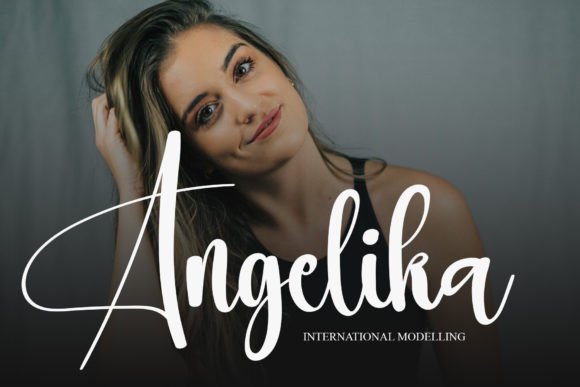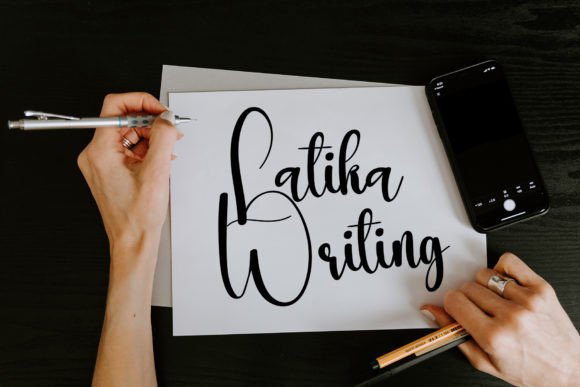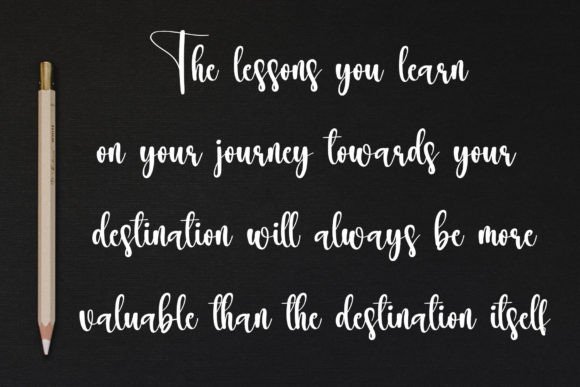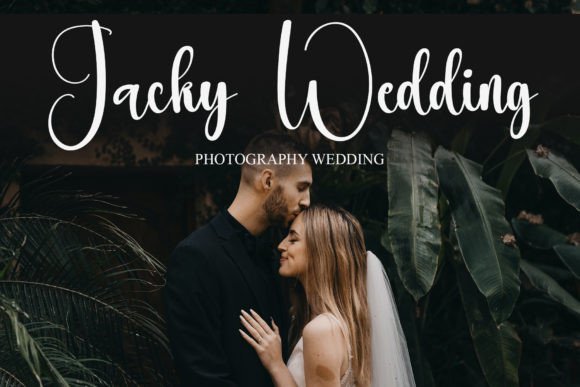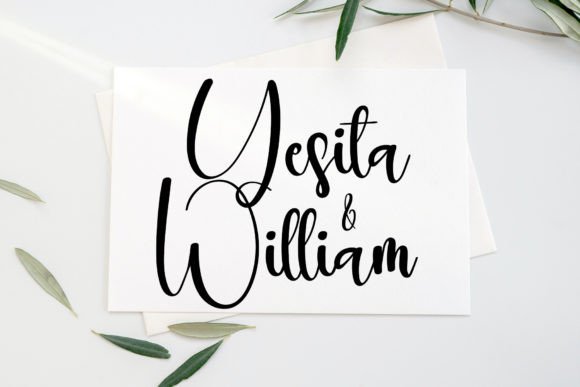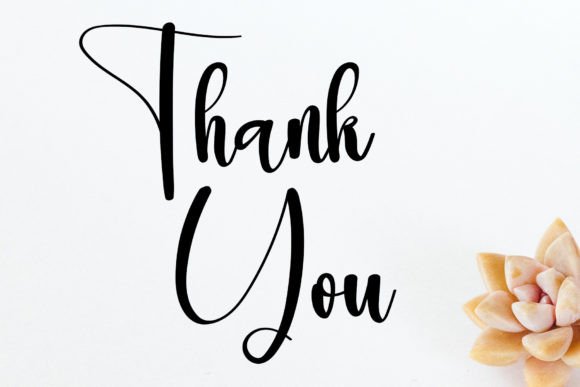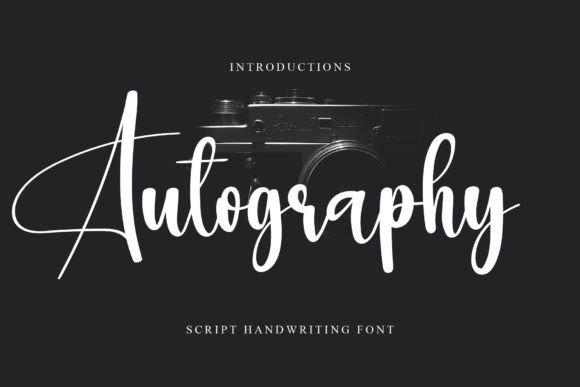
The Autography Font: Elevate Your Designs with Timeless Elegance
A Personal Review: What I Love About Autography
Autography is more than just a font; it’s a statement piece for your designs. Here are a few things that I absolutely love about it:
• ✨ Contemporary yet Classic: Autography strikes the perfect balance between modern flair and timeless elegance, making it versatile for a wide range of projects.
• 💫 Balanced and Varied: The font’s design ensures that your text remains readable while adding a touch of sophistication, perfect for headings and body text alike.
No font is perfect, and while Autography is incredibly versatile, there are a couple of things to keep in mind:
• 🤔 Legibility at Small Sizes: While Autography is stunning at larger sizes, it may lose some legibility when used at very small sizes. It’s best used for headlines, titles, and medium to large body text.
The Story Behind Autography
Autography was inspired by timeless classic calligraphy, reimagined for the modern era. The designer aimed to create a font that not only pays homage to traditional calligraphy but also meets the demands of contemporary design. The result is a font that is both elegant and versatile, suitable for a wide range of creative projects.
What is Autography font? Autography is a stylish handwritten font with a contemporary atmosphere, inspired by timeless classic calligraphy. It’s designed to add elegance and beauty to your projects.
Is Autography suitable for body text? While Autography is stunning for headings and titles, it’s also legible enough for medium to large body text. However, for very long documents, a more traditional serif font might be more appropriate.